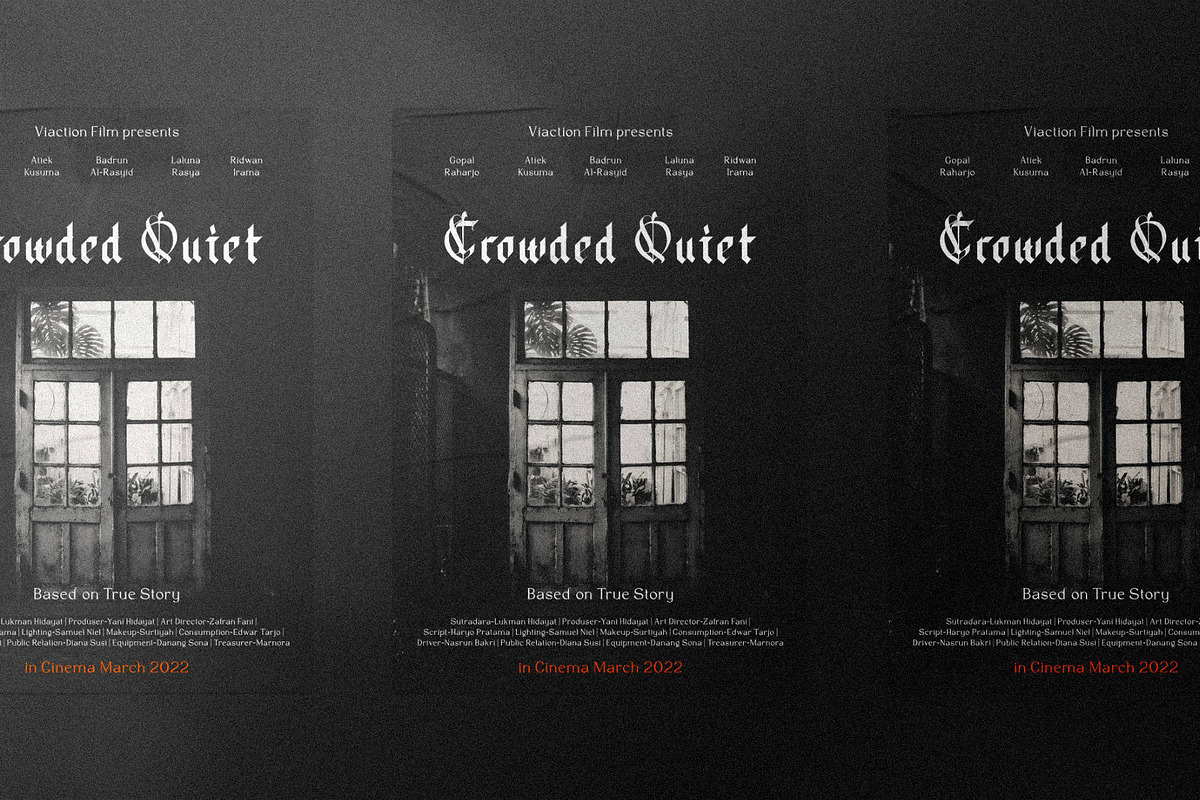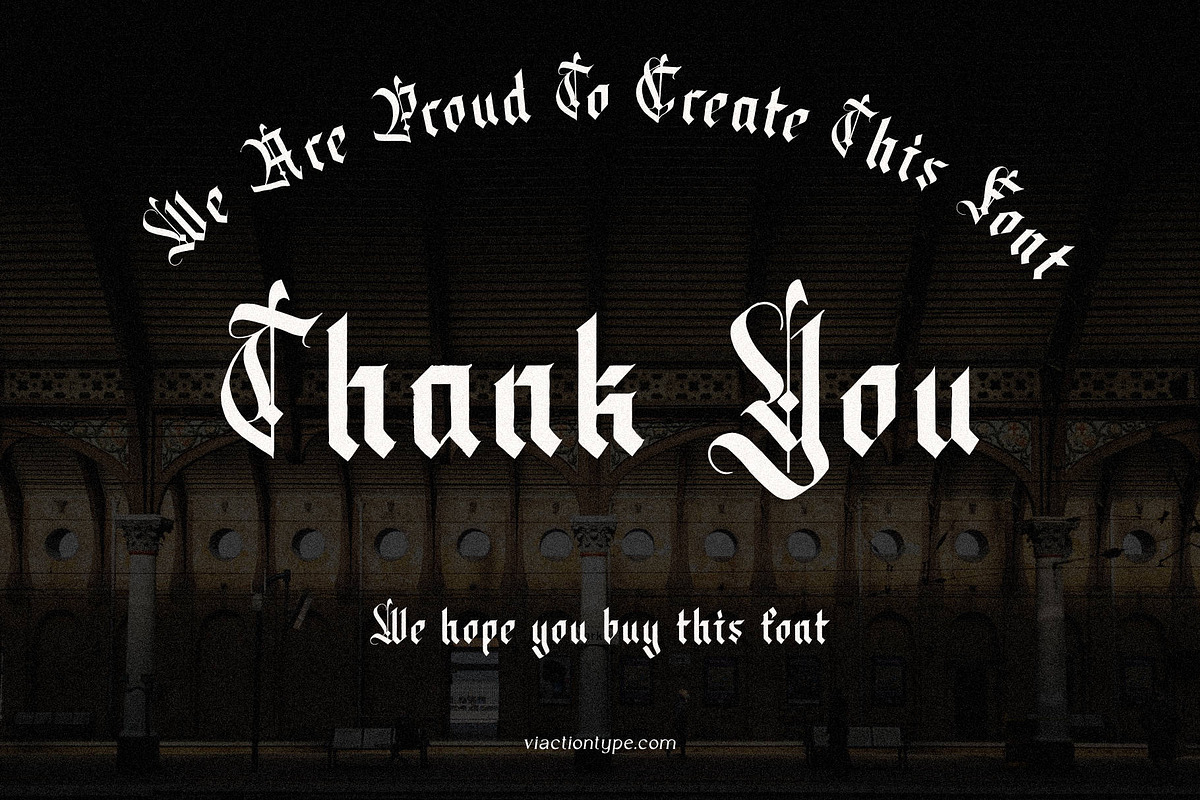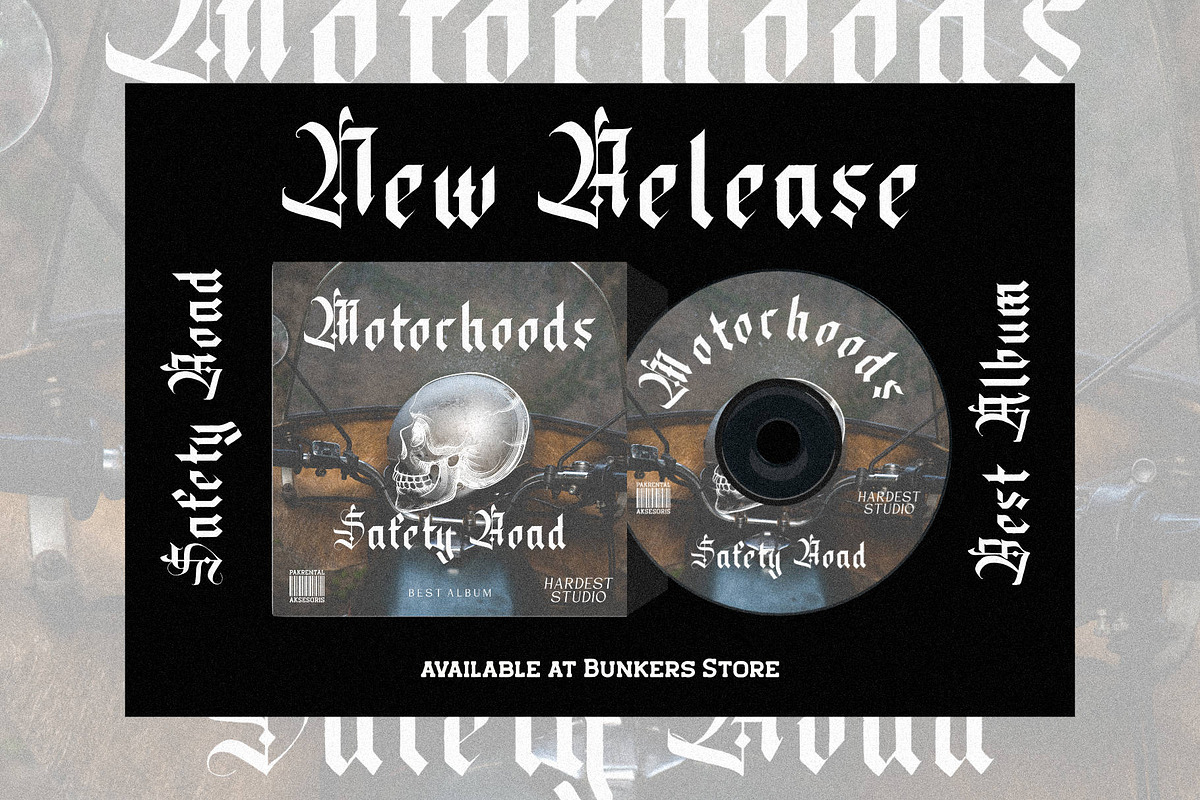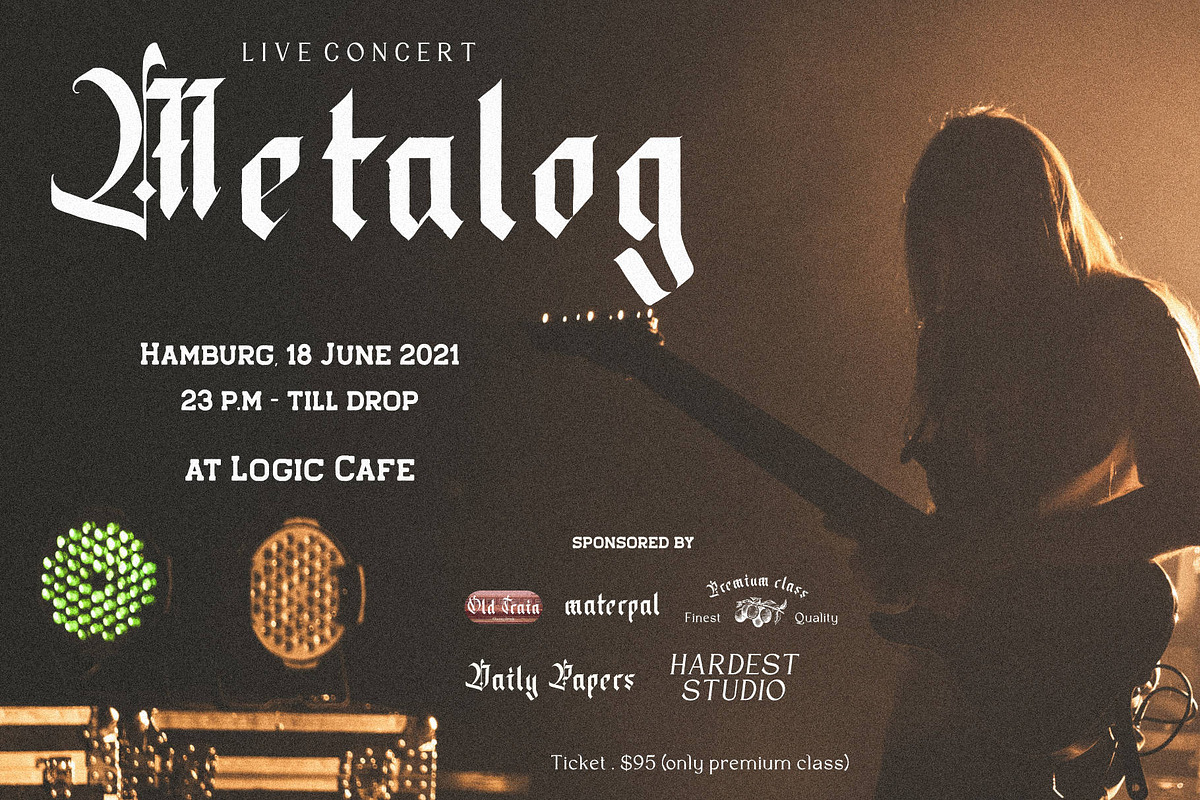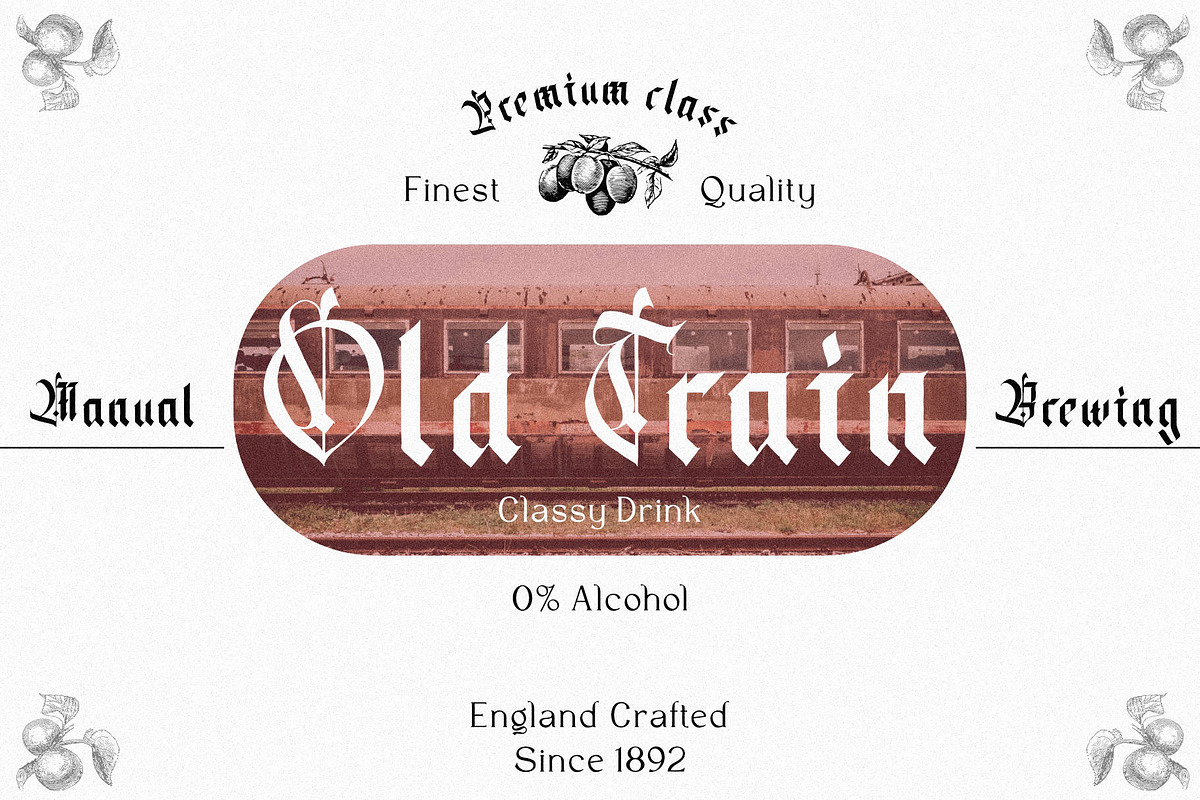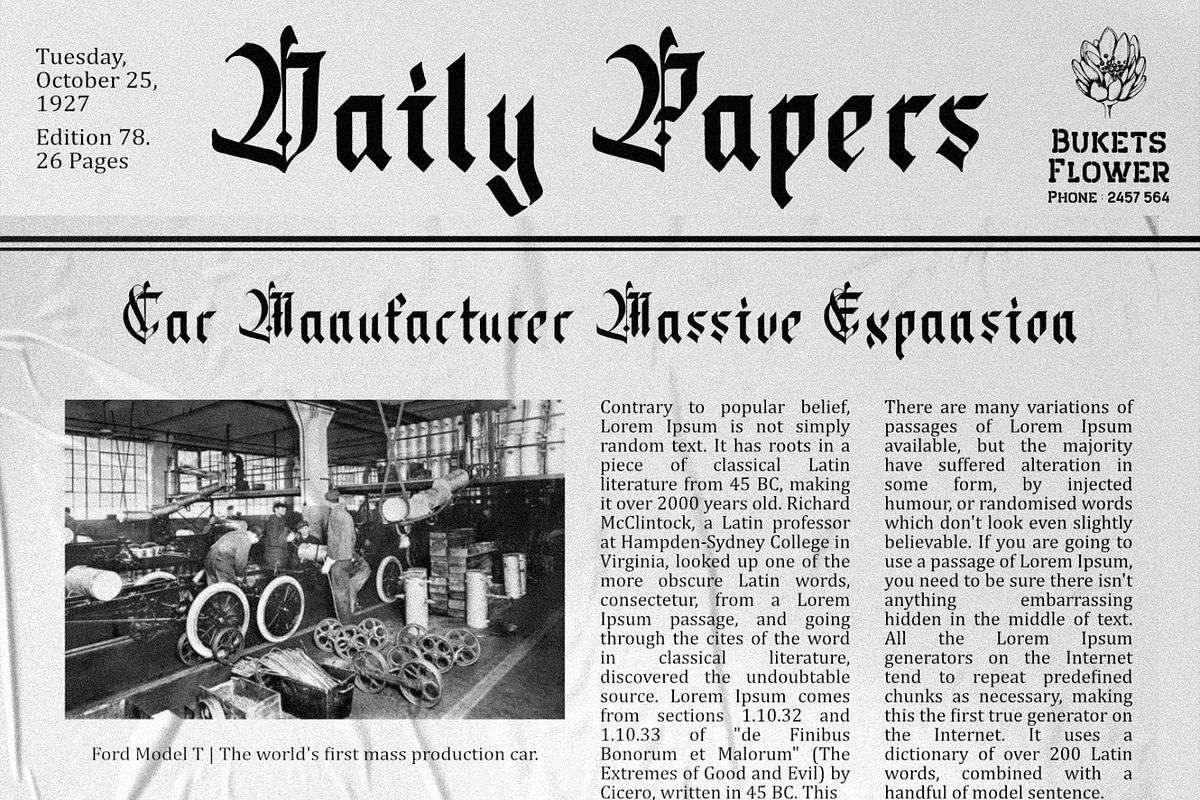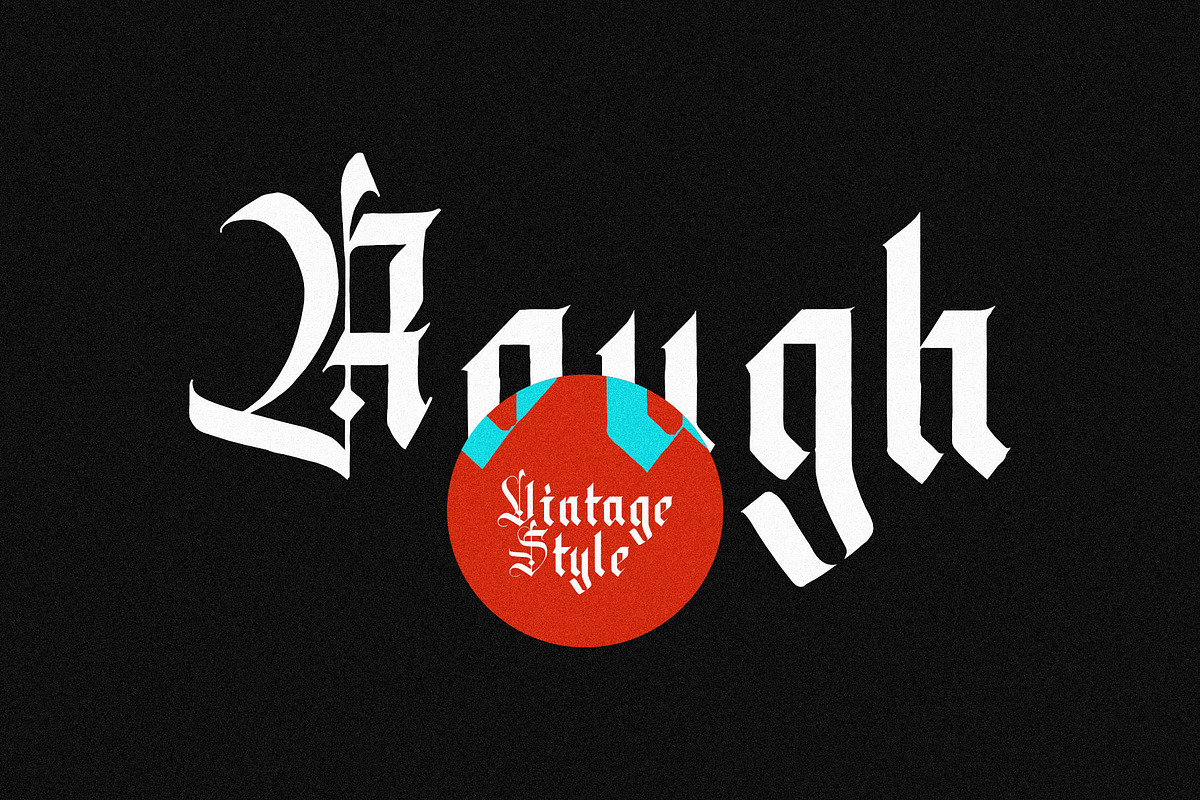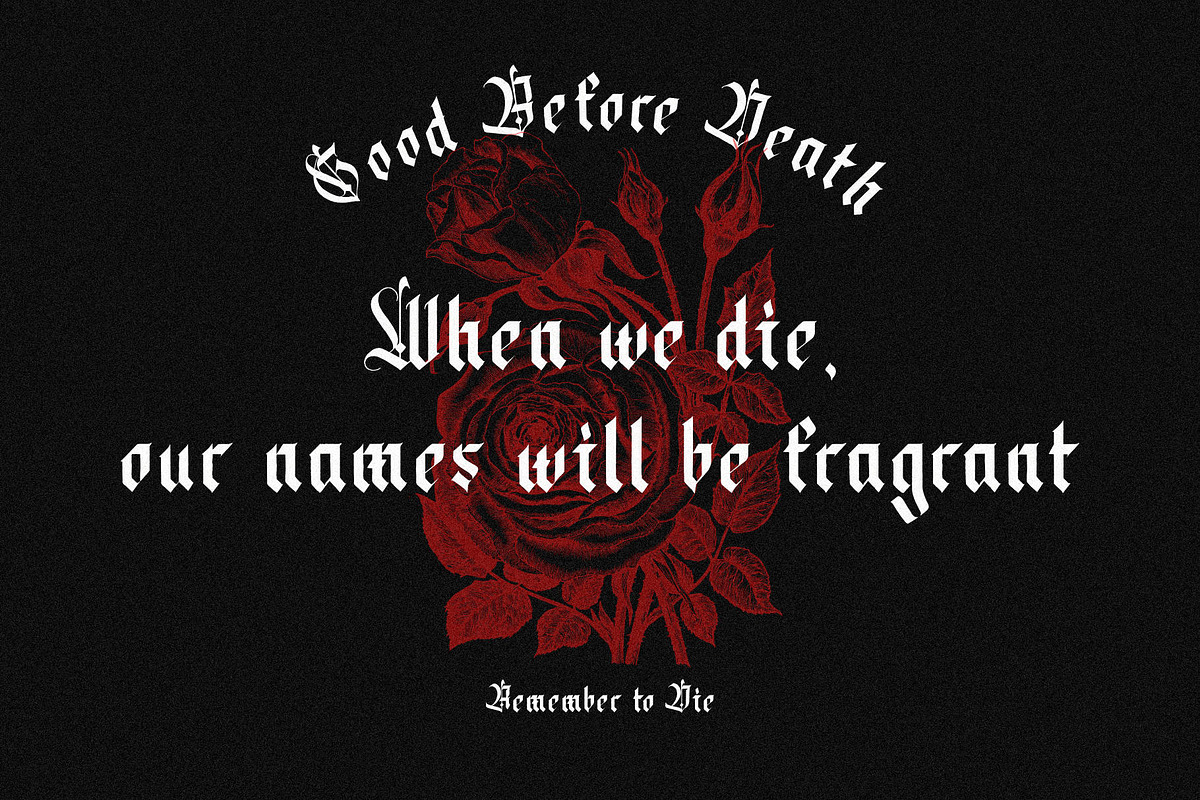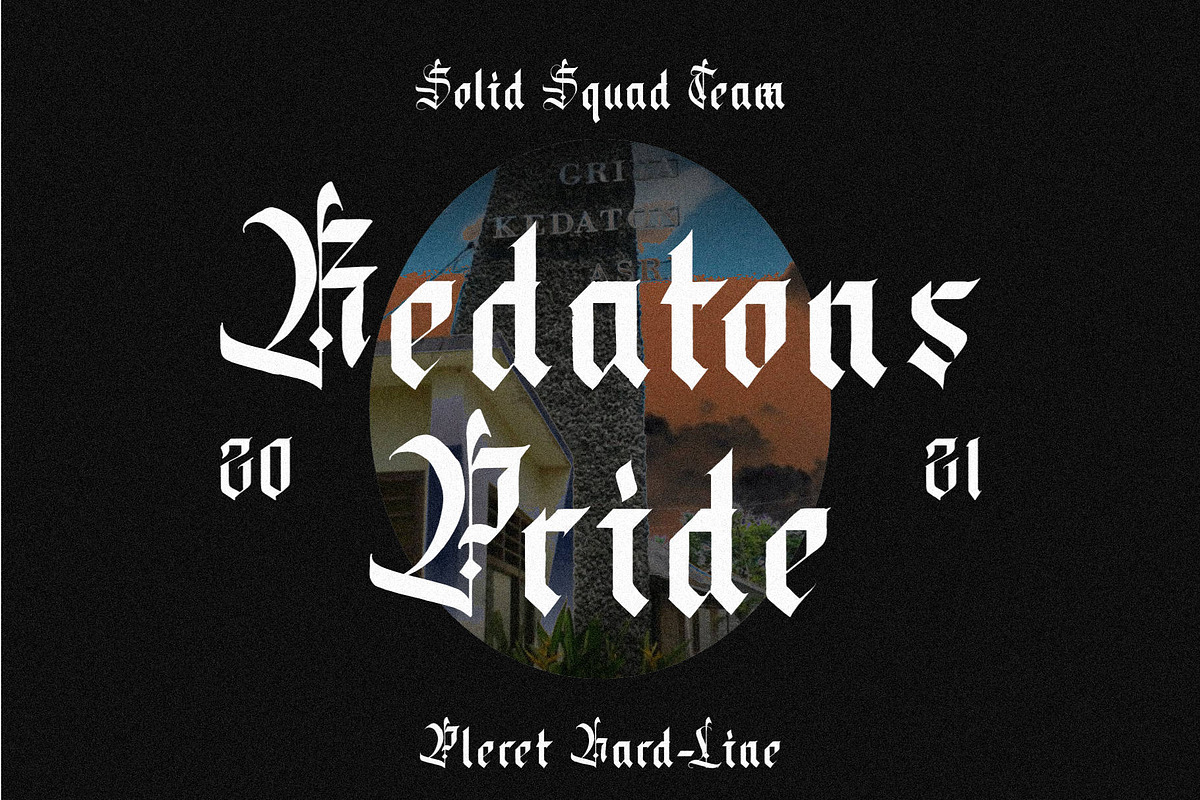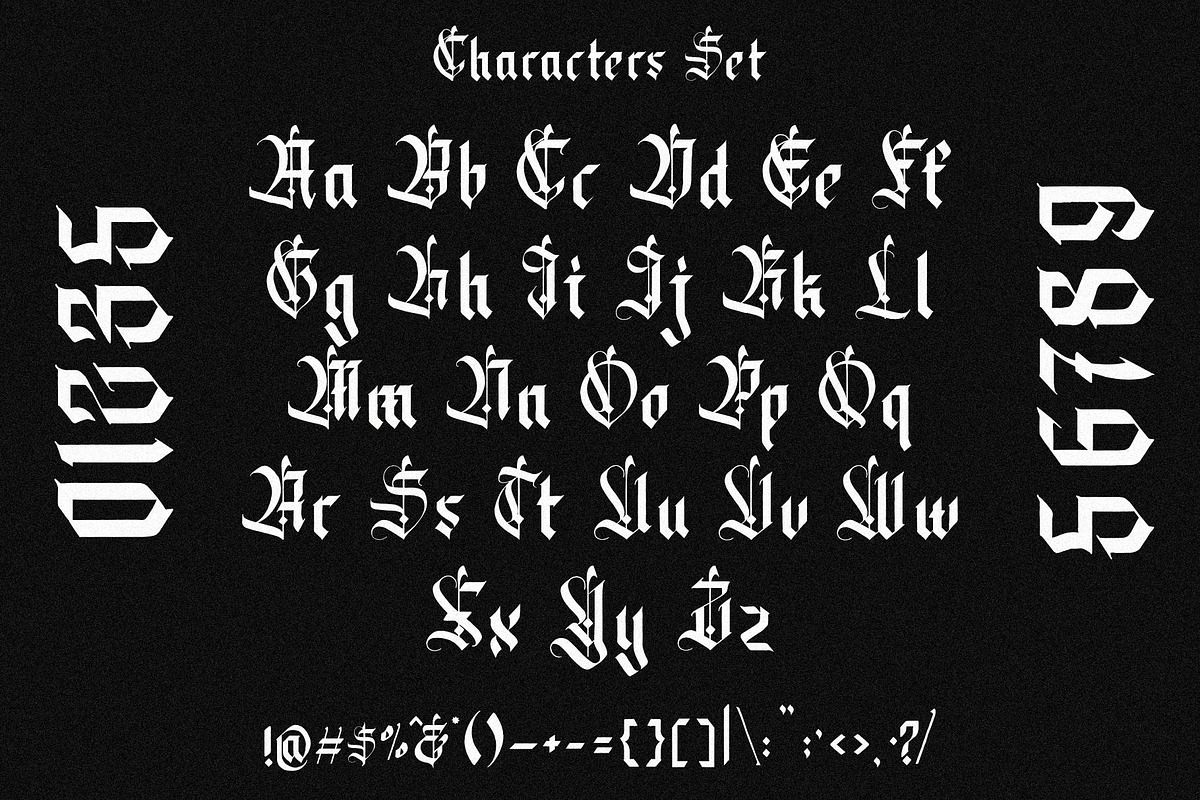
VT Datons - Blackletter
Datons is a font that is made with a vintage touch but doesn't lose its signature Blackletter font style. Perfect for headlines or brand names or any other spooky & vintage themed design need. These fonts include: